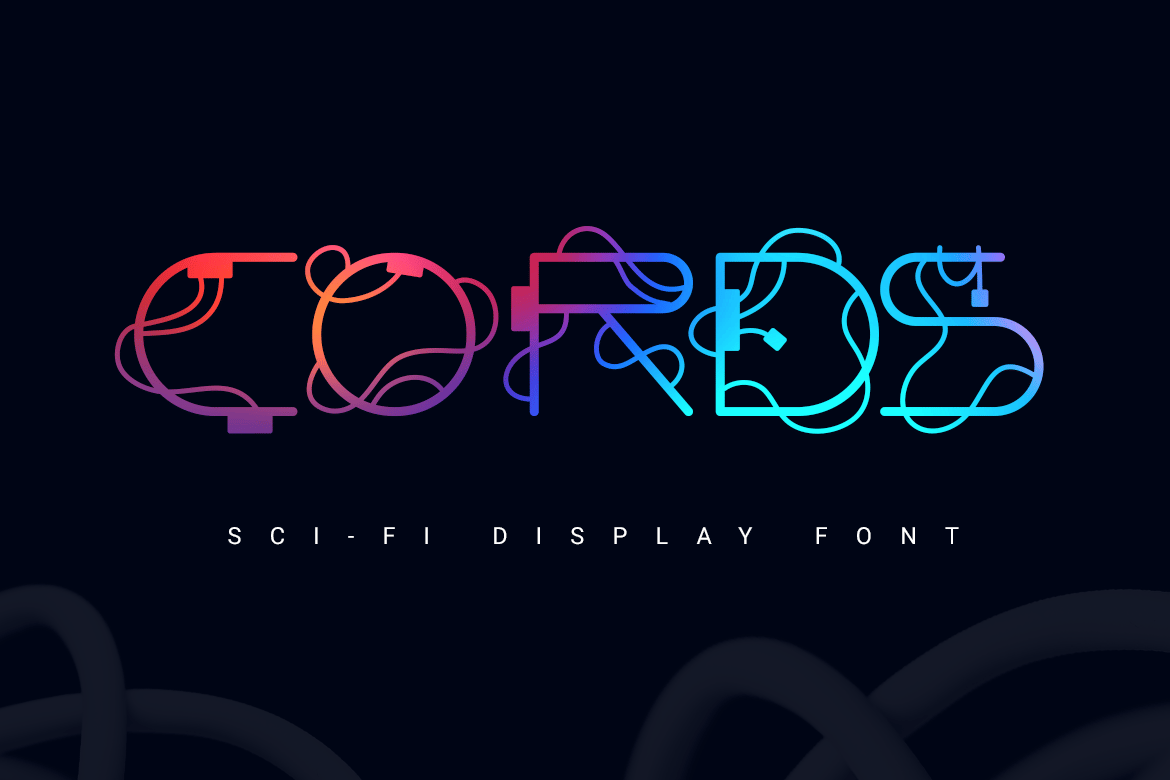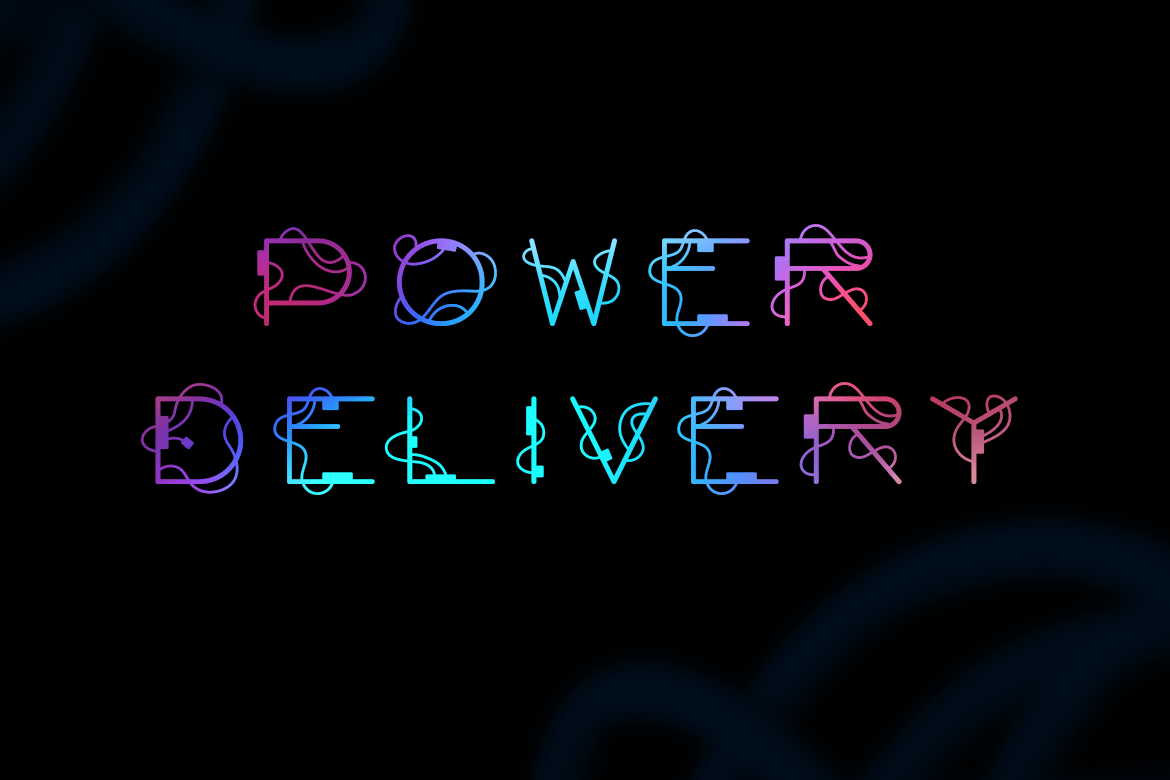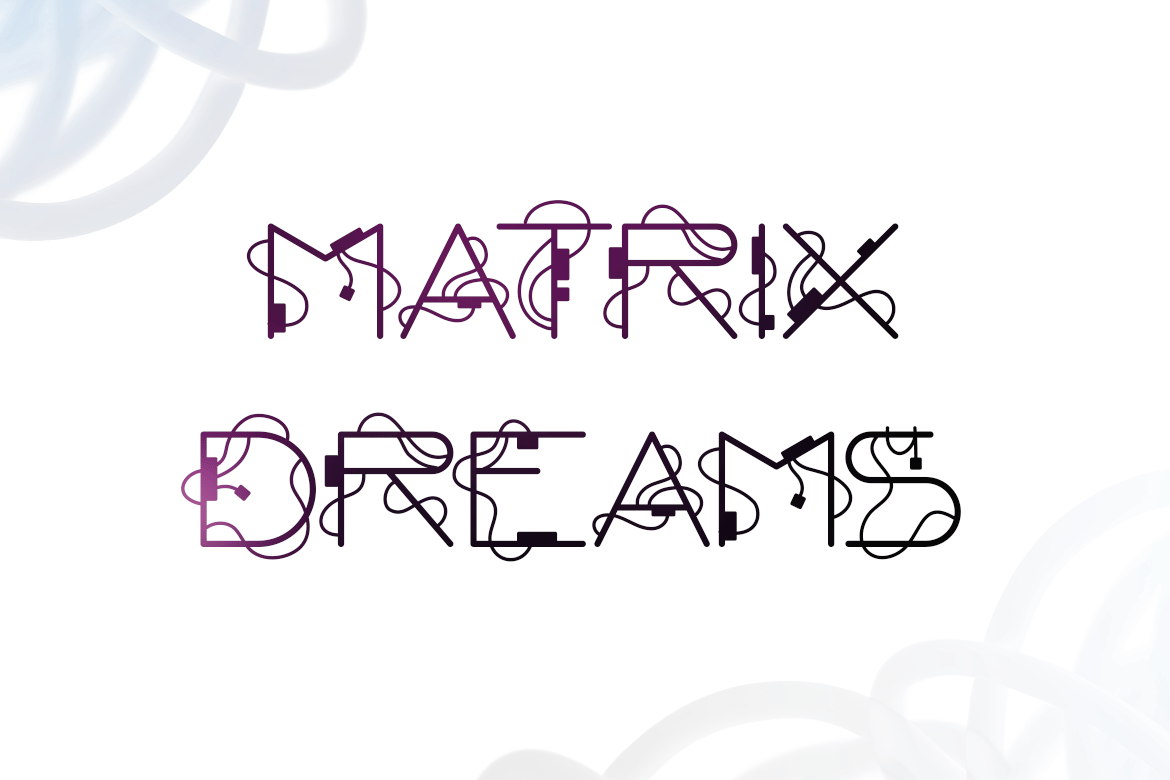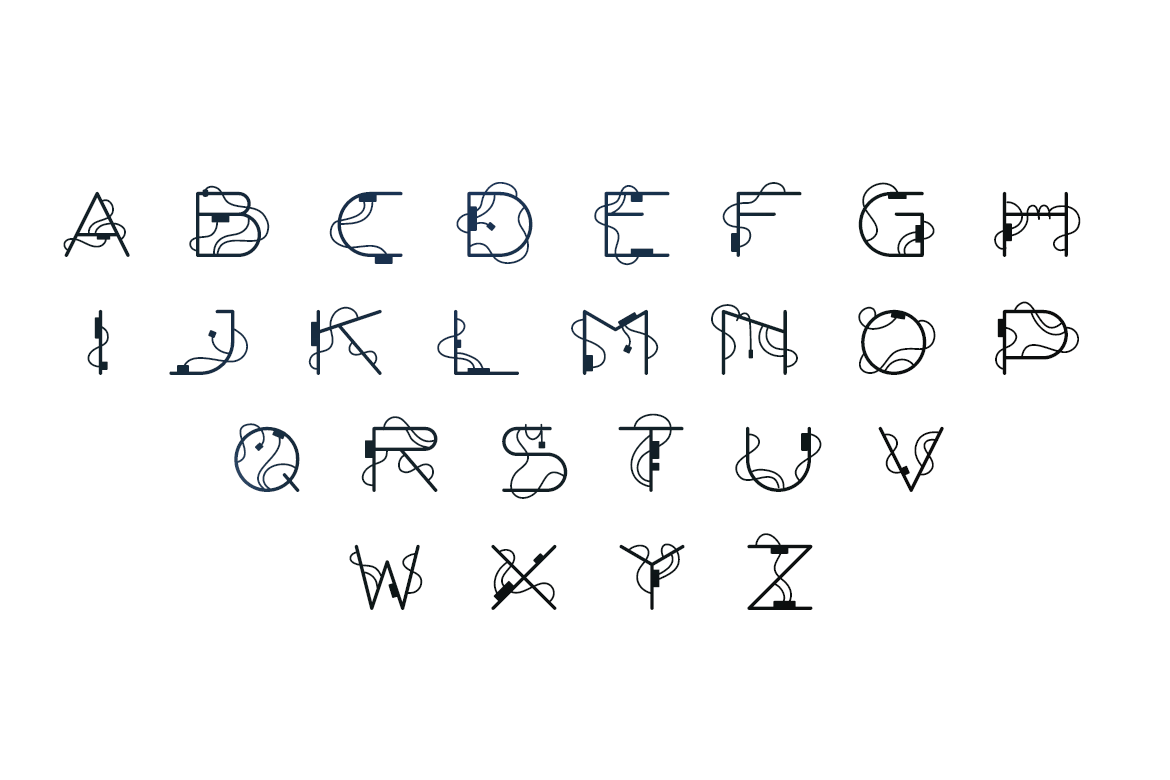
Cords | sci-fi font
Cords is a sans serif font designed with rounded letters and wires. This sci-fi font was inspired by the movie The Matrix by Wachowski. Adding colors to the letters decorates the design. The font has only capital letters, it works great to make short titles. The font looks great both on a dark and a light background.
The font Cords contains only capital letters.